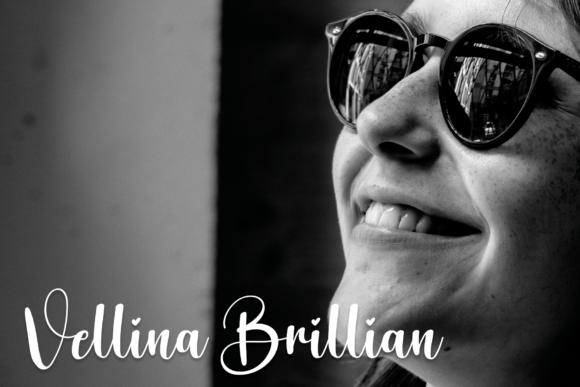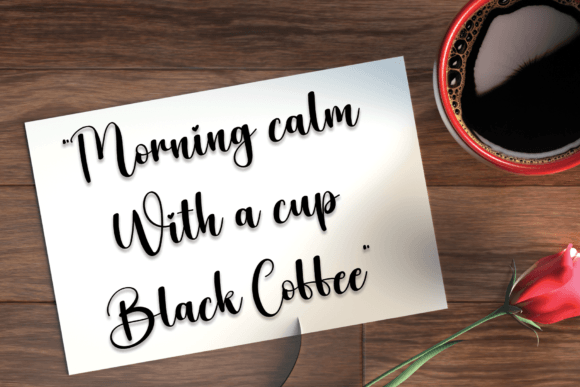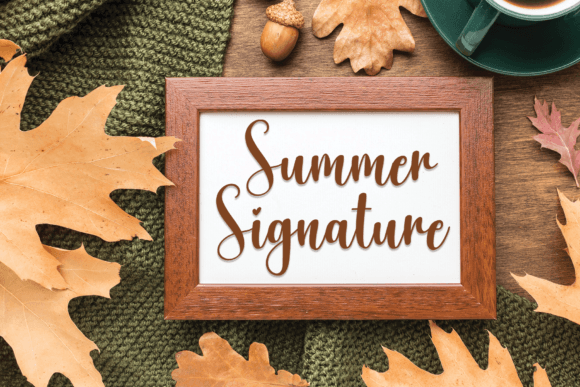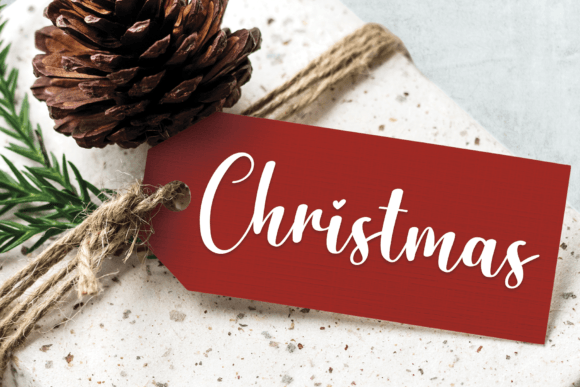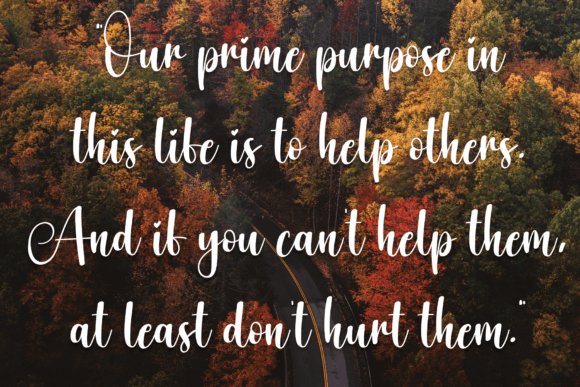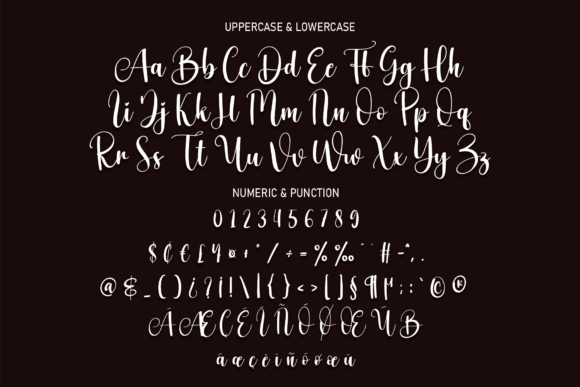
Introduction to Lightening Font
As you sit at your desk, surrounded by scattered papers and half-finished sketches, you finally find that perfect idea that sparks your creativity. The concept is flowing, the design is taking shape, but something’s missing – that extra touch of elegance and sophistication that sets your project apart. This is where the Lightening Font comes in – a beautiful, high-quality calligraphy typeface that will add a touch of luxury to your design project.
With its delicate, dancing characters that move along the baseline, the Lightening Font is the perfect design resource for any creative project. Whether you’re working on a wedding invitation, a branding campaign, or a simple blog post, this font will elevate your design to the next level. And the best part? It’s available for free download, making it an accessible and valuable addition to your design toolkit.
For designers, the Lightening Font is a game-changer – a high-quality, versatile font that can be used with a transparent background to create stunning visual effects. Its sweet, romantic vibe makes it perfect for a wide range of design projects, from elegant invitations to whimsical illustrations.
Key Features of Lightening Font
- Unique characteristics include a bold and modern aesthetic, making it perfect for headings and titles.
Honest Review: Lightening Font
I recently had the chance to work with the Lightening Font, and I must say it’s a great addition to any designer’s toolkit. One of the standout features of this font is its high quality and crisp design, making it perfect for creative projects that require a professional touch.
Here are some of the things that work well with the Lightening Font:
- ✨ High-quality design that’s perfect for print or digital use
- ✨ Transparent background, allowing for seamless integration with any design element
- ⚠️ Limited font styles and variations, which may not be suitable for complex design projects
- ⚠️ May not be as versatile as some other fonts on the market
Overall, I’m impressed with the Lightening Font. It’s a solid choice for designers looking for a high-quality font that’s easy to use and customize. While it may not be the most comprehensive font library, it’s a great resource for those who need a simple, yet effective font for their creative projects.
Tips for Getting the Most Out of Lightening Font
Use the Lightening Font in combination with other design elements, such as images or graphics, to create a unique and visually appealing look. Experiment with different font sizes and colors to add emphasis to your design project.
The Lightening Font is suitable for a variety of creative projects, including graphic design, digital art, and even web design. Its transparent background makes it ideal for use in logos, icons, and other design elements where a clear background is required.
Does Lightening Font have a transparent background, making it suitable for use on images with complex backgrounds?
Yes, the Lightening Font features a transparent background, making it perfect for use on images with complex backgrounds. This allows designers to easily overlay the font on top of their images without worrying about the background interfering with the text.